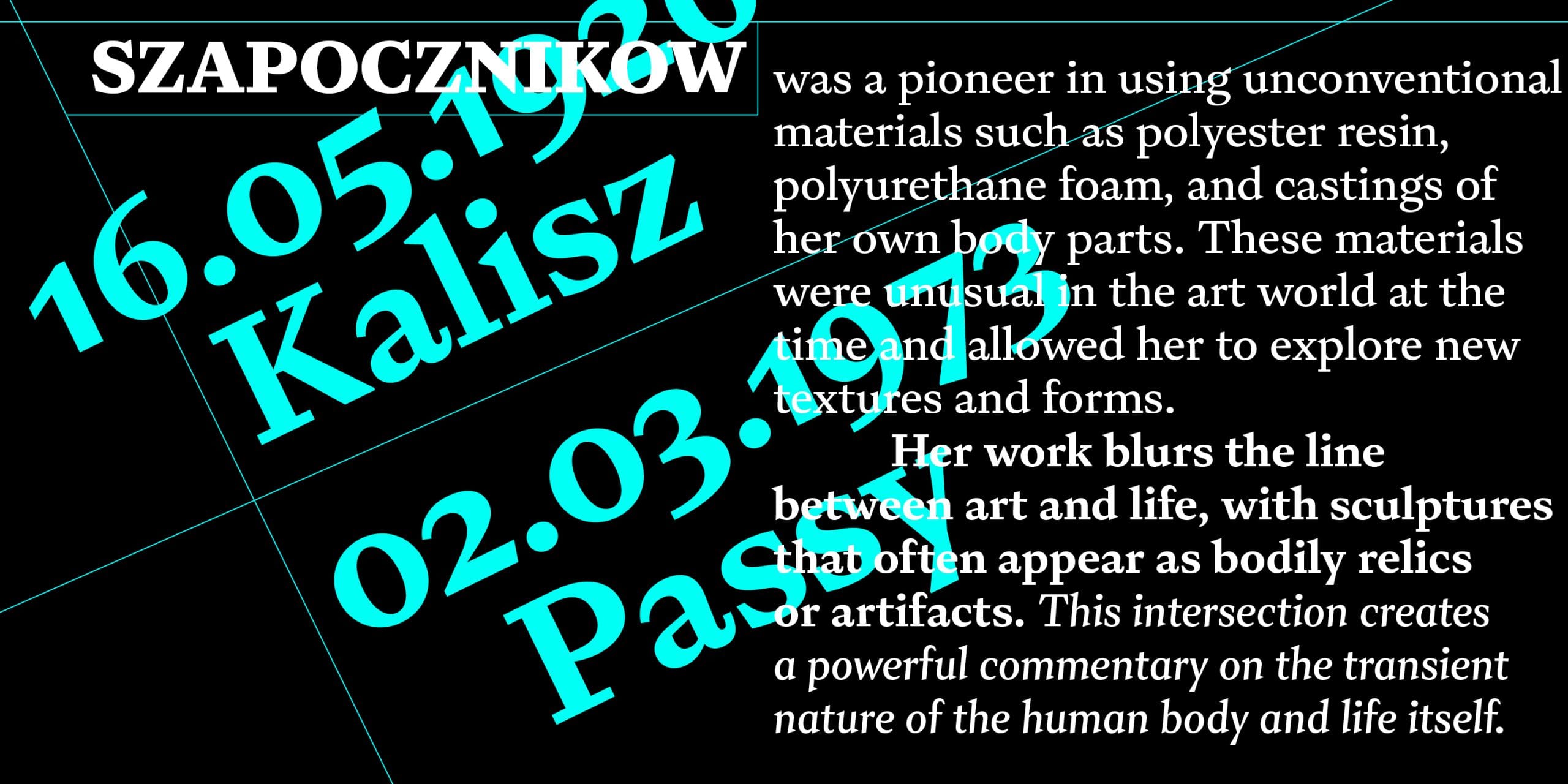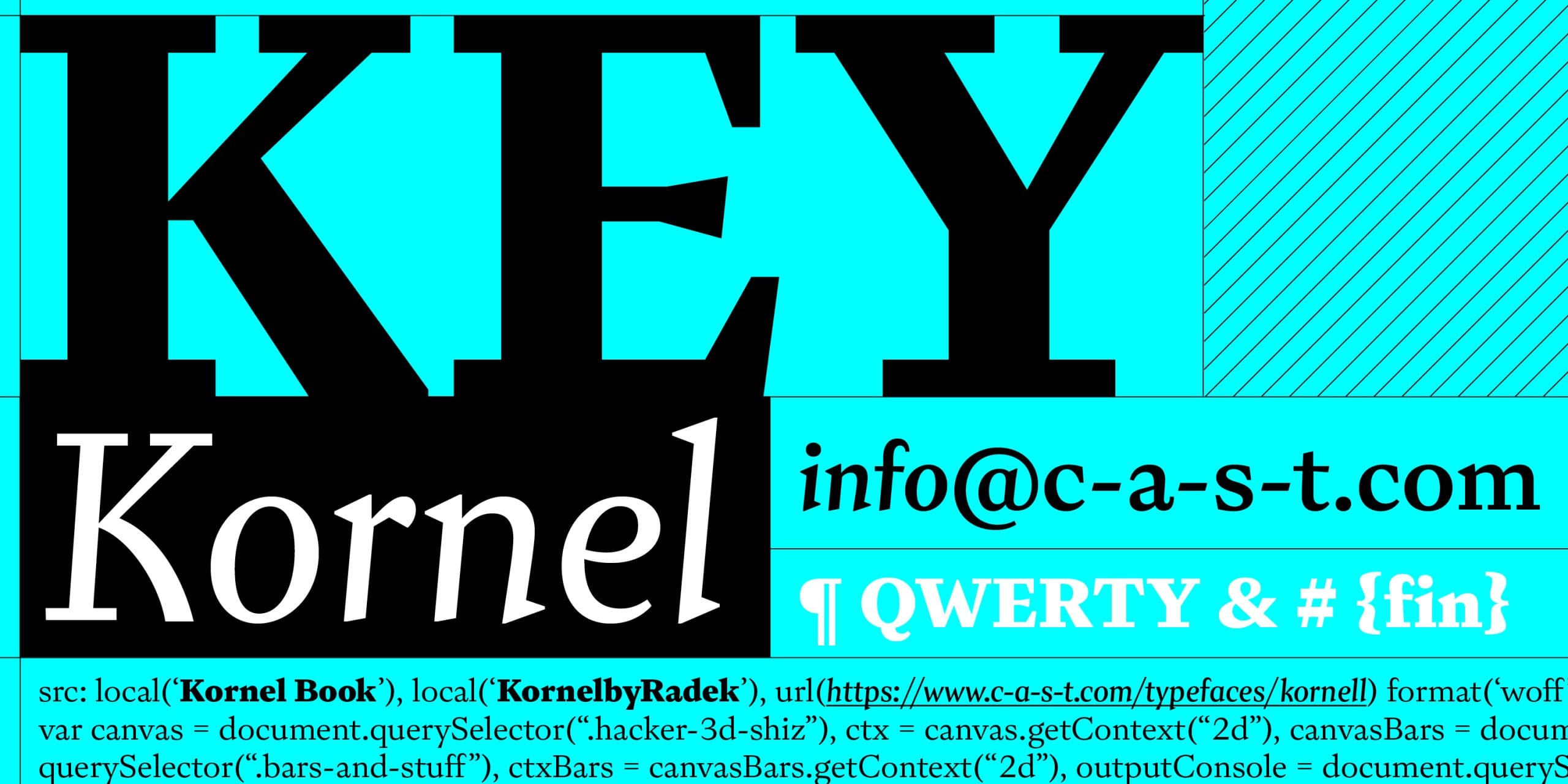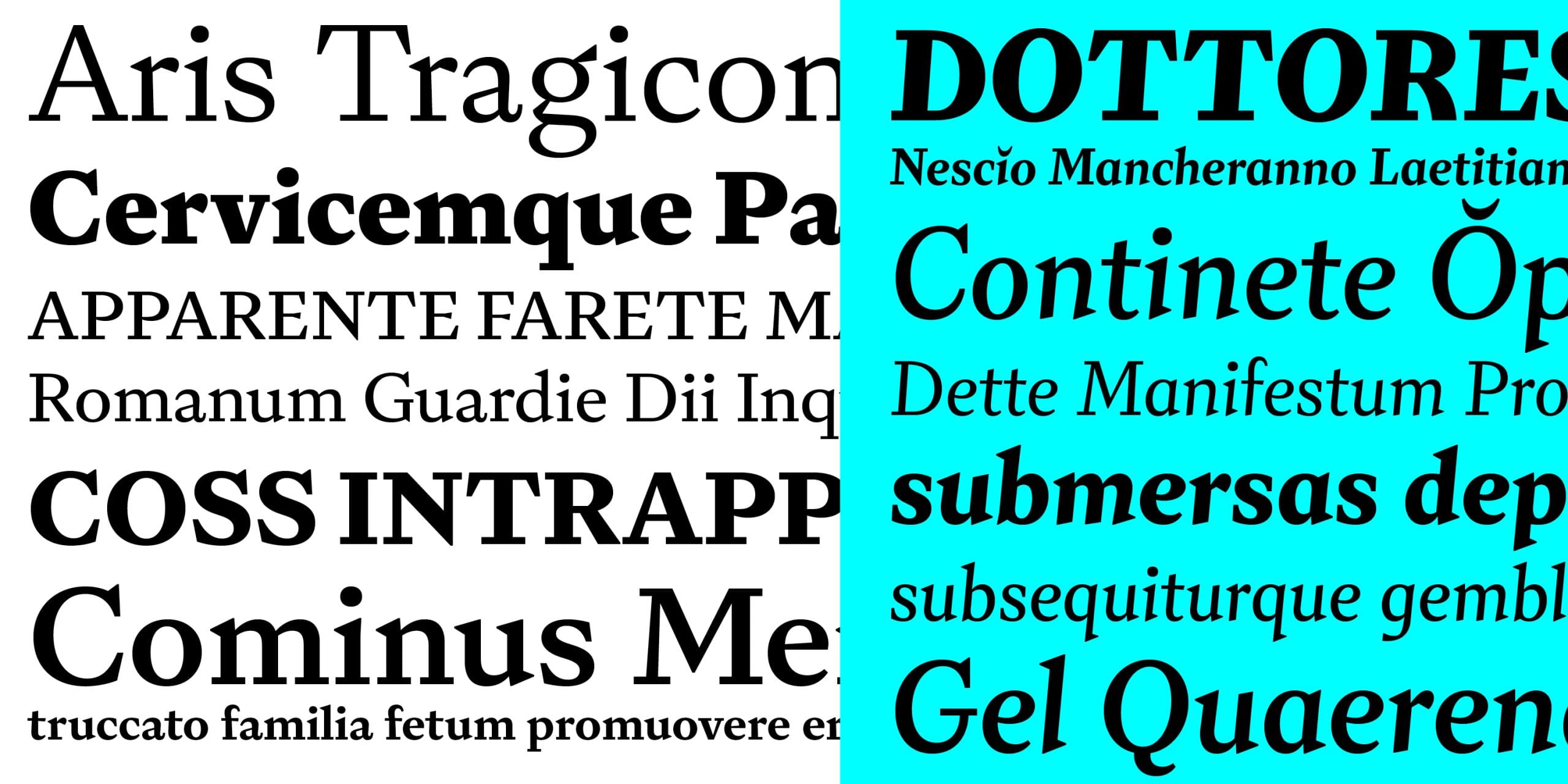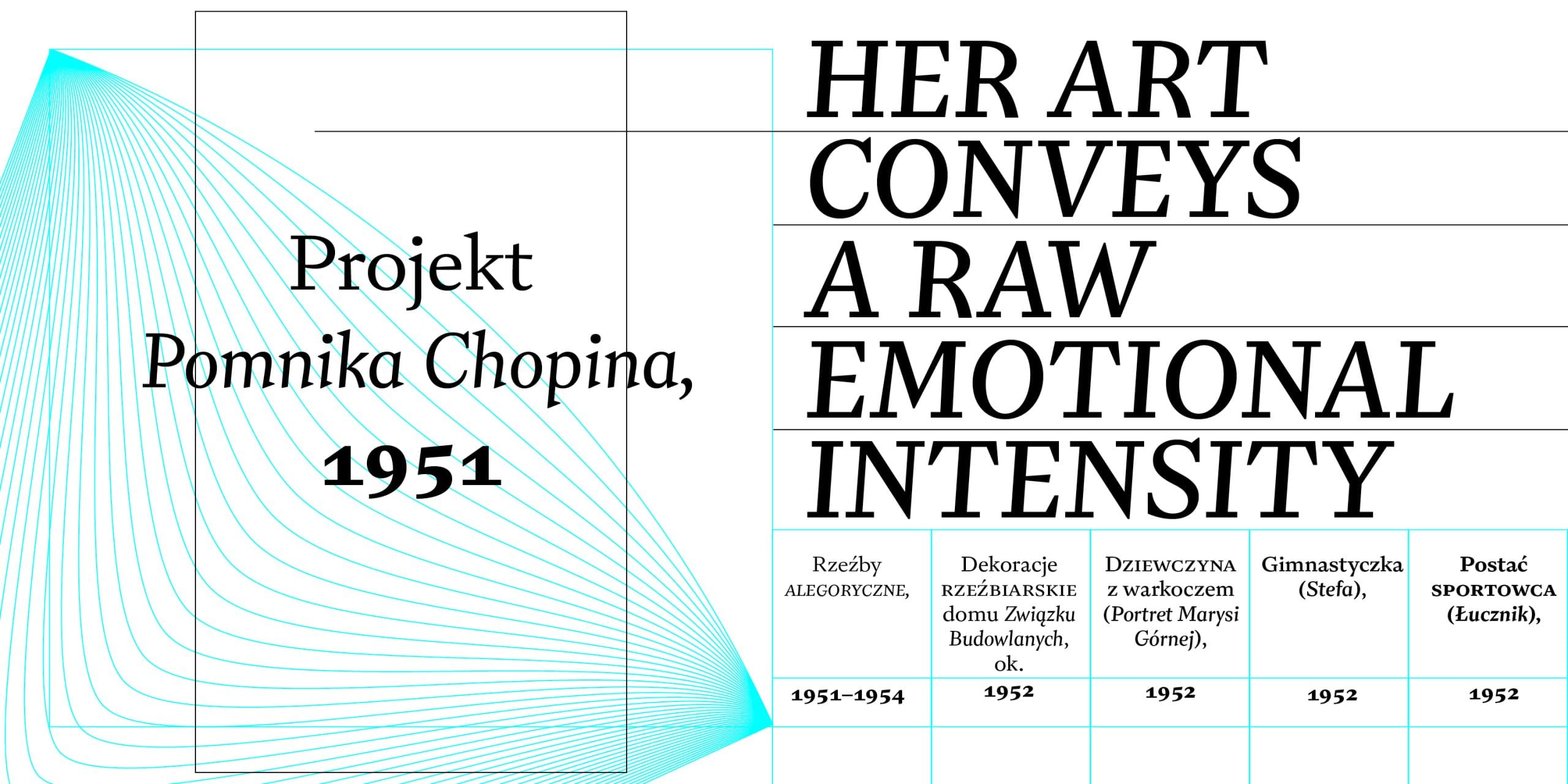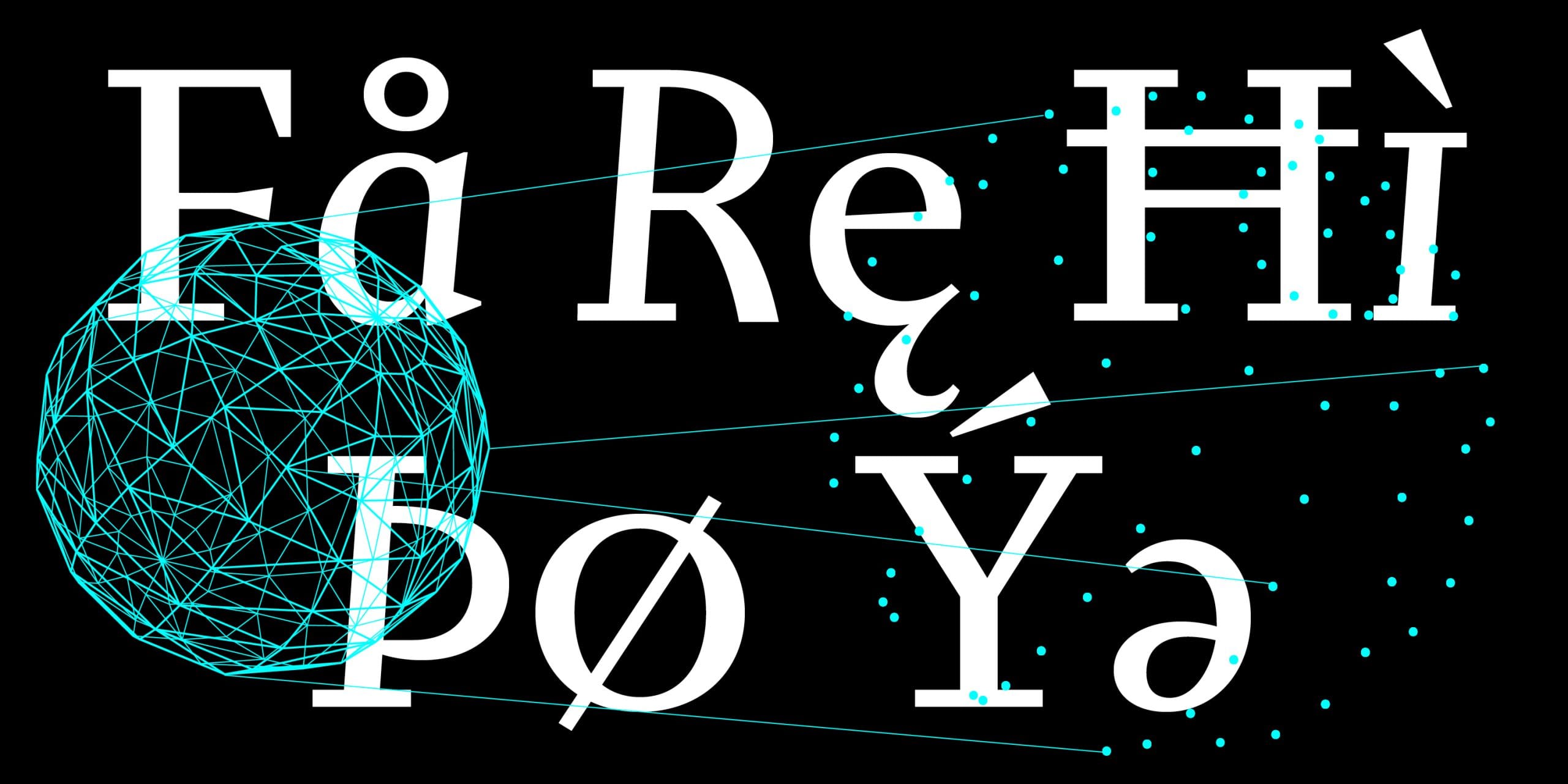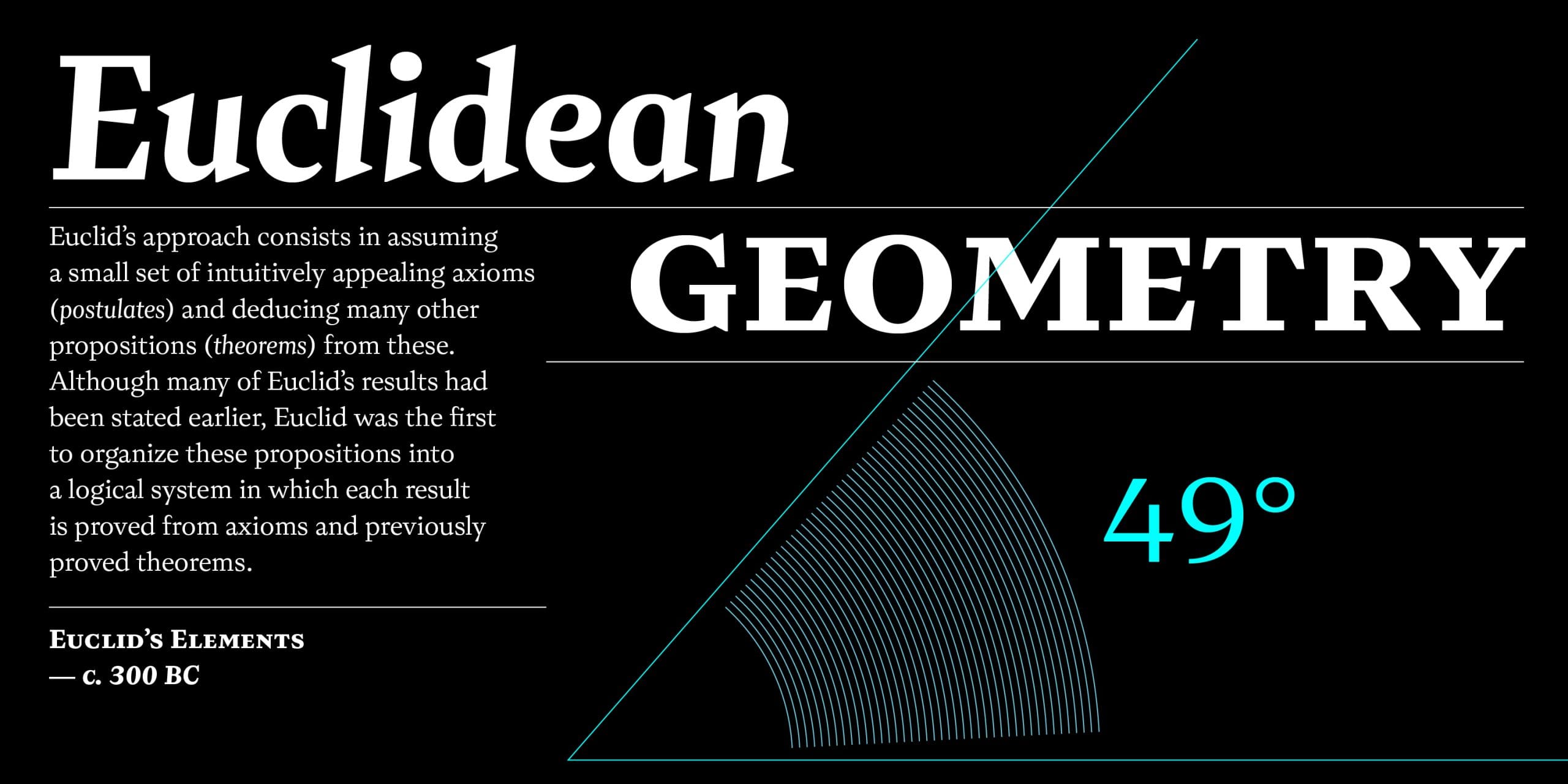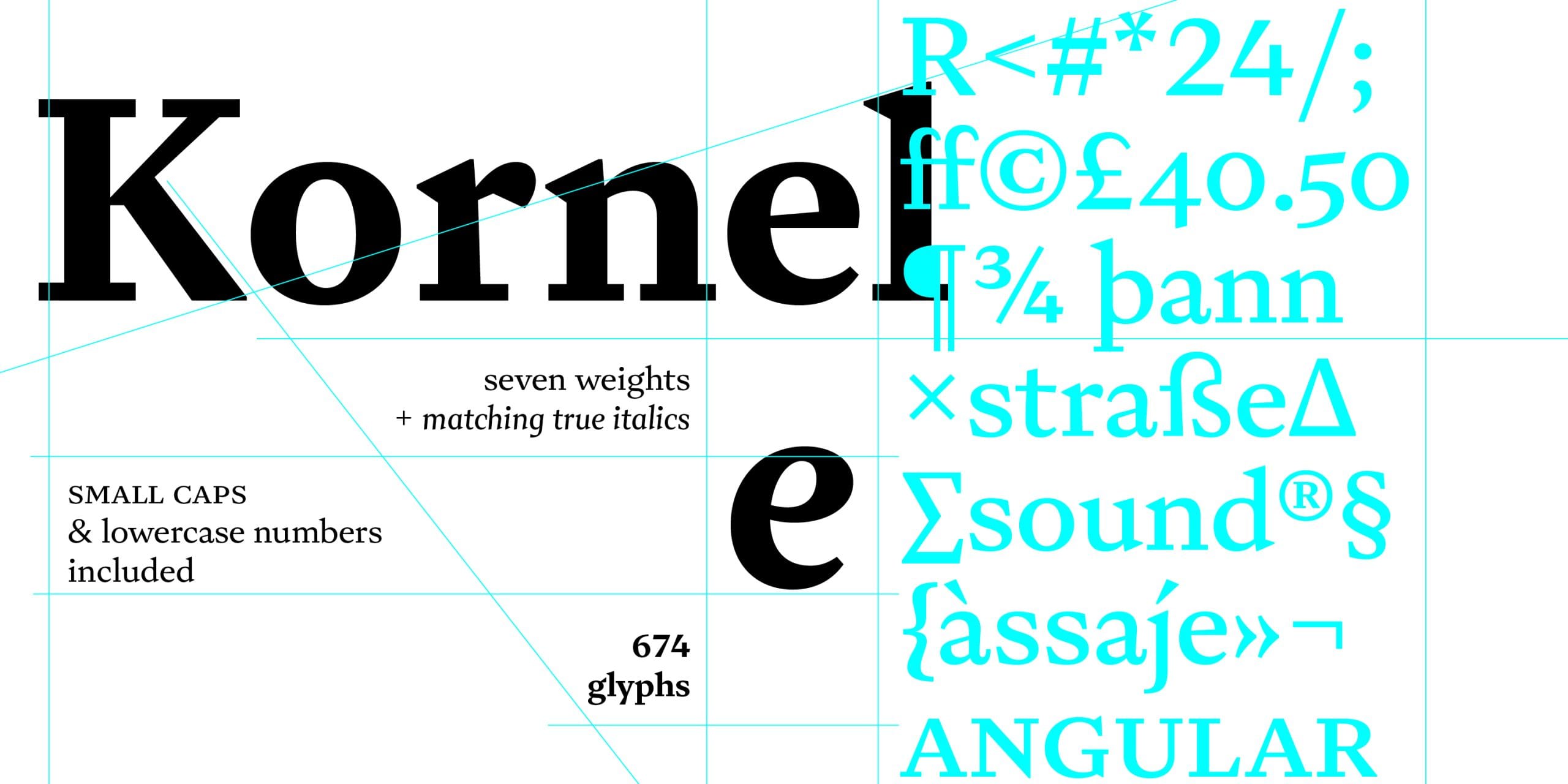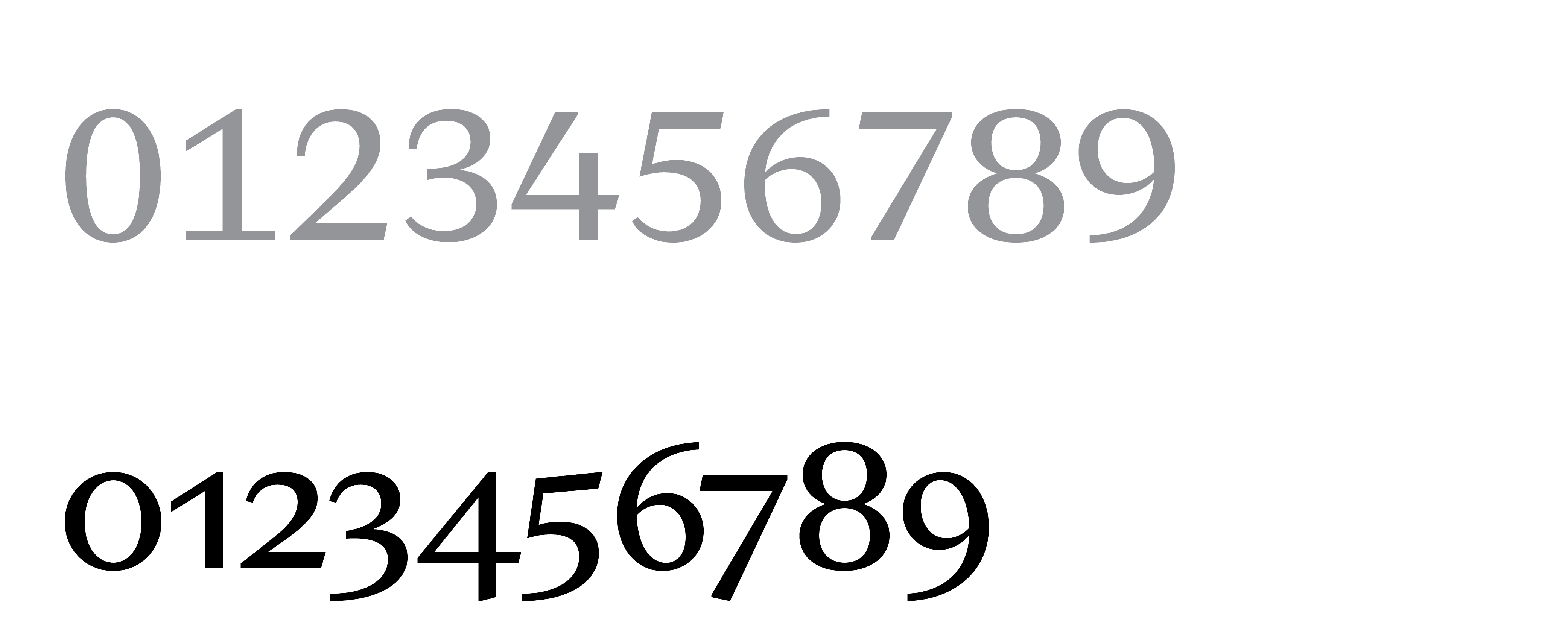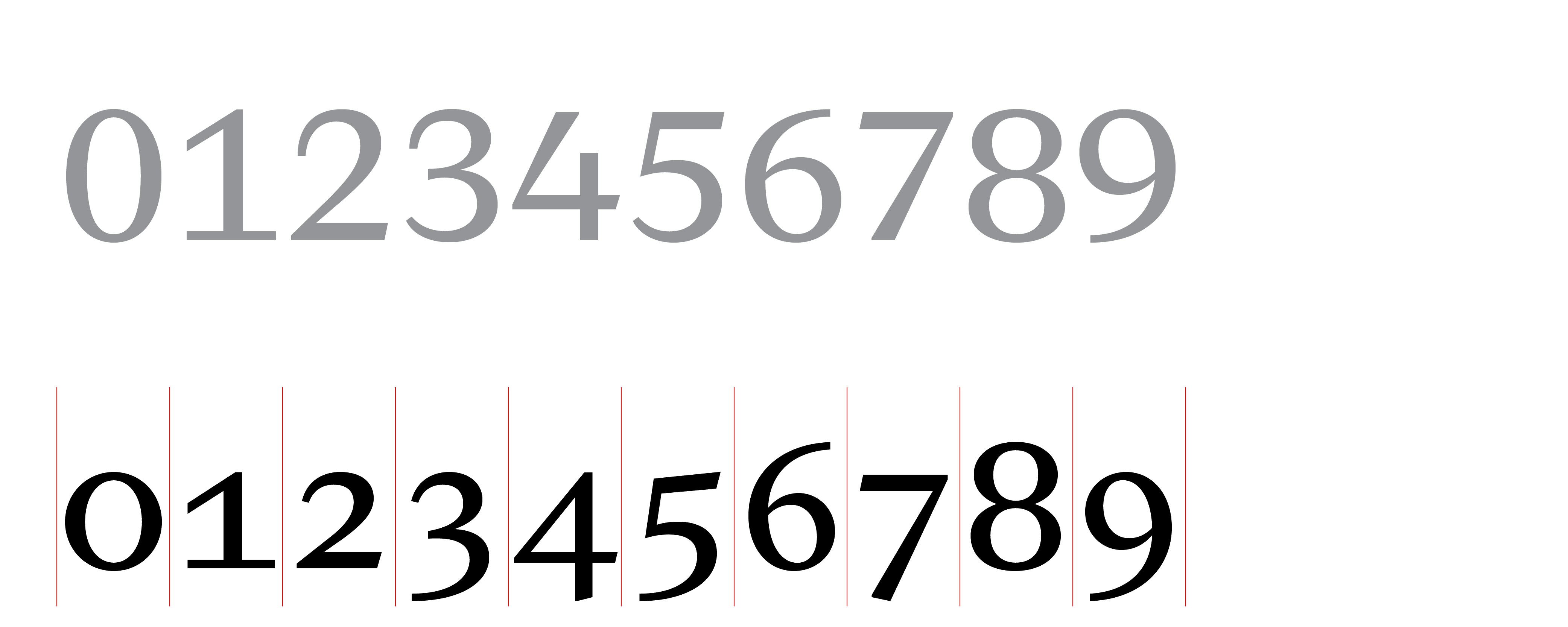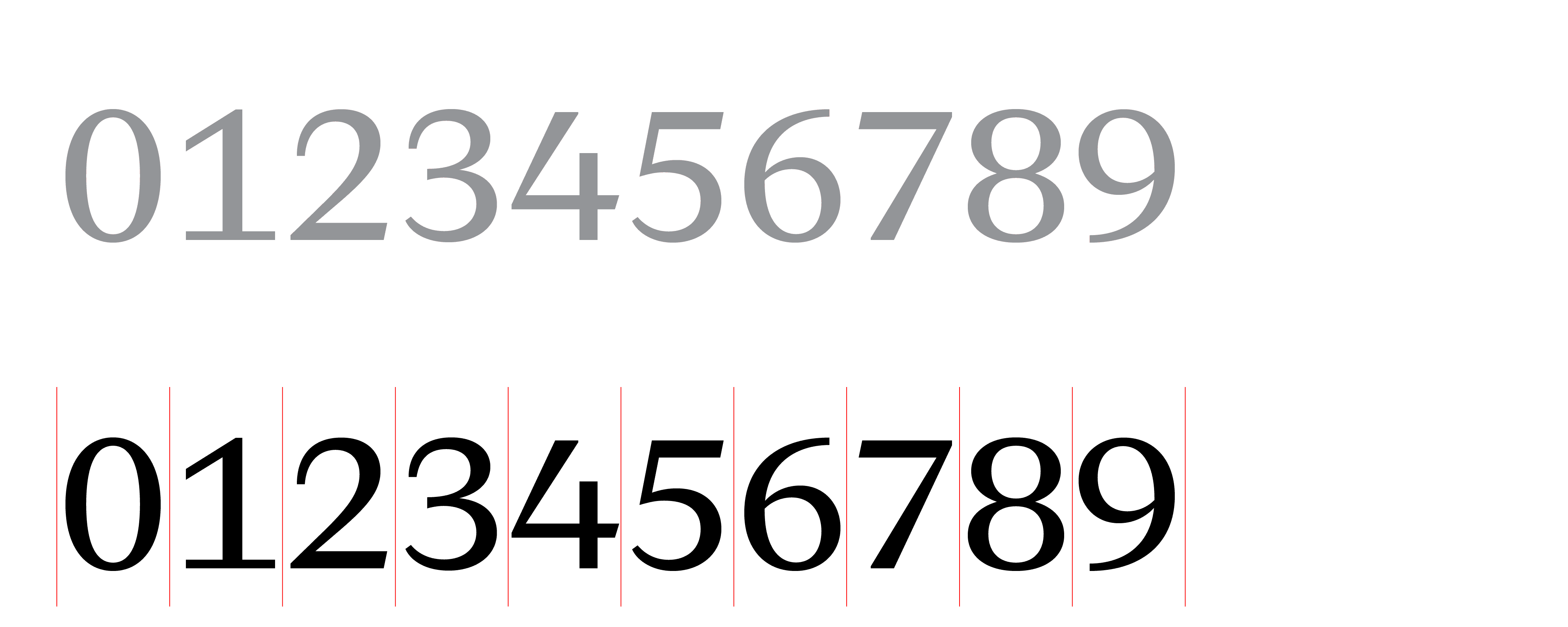
Kornel
Kornel is a seriffed type family designed for long texts. Its confident appearance derives from classic proportions and sharp details, both of which allow excellent performances for print and web.
With the design priority of producing texts with a harmonious rhythm, inspiration for Kornel came from Renaissance typography in general, rather than any specific typeface. Treatment of terminals and diagonal strokes produce a distinguished contemporary twist and the gently slanted Italics are the perfect complement to the Roman. Sharp entry and exit strokes and oblique strokes of the Italics make for the simplified shapes of letters such as R, K, k, v, x, y, w.
With its seven weights – Book, Regular, Regular-Dark, Medium, Bold, ExtraBold and Black – and related Italics, Kornel meets the most demanding of text compositions.
Designer
Radek Łukasiewicz
Production years
2023-2024
Styles
Book, Book Italic, Regular, Regular Italic, Regular-Dark, Regular-Dark Italic, Medium, Medium Italic, Bold, Bold Italic, ExtraBold, ExtraBold Italic, Black, Black Italic
OpenType Features
Tabular figures
Oldstyle figures
Oldstyle tabular figures
Superscript and subscript
Ligatures
Small caps